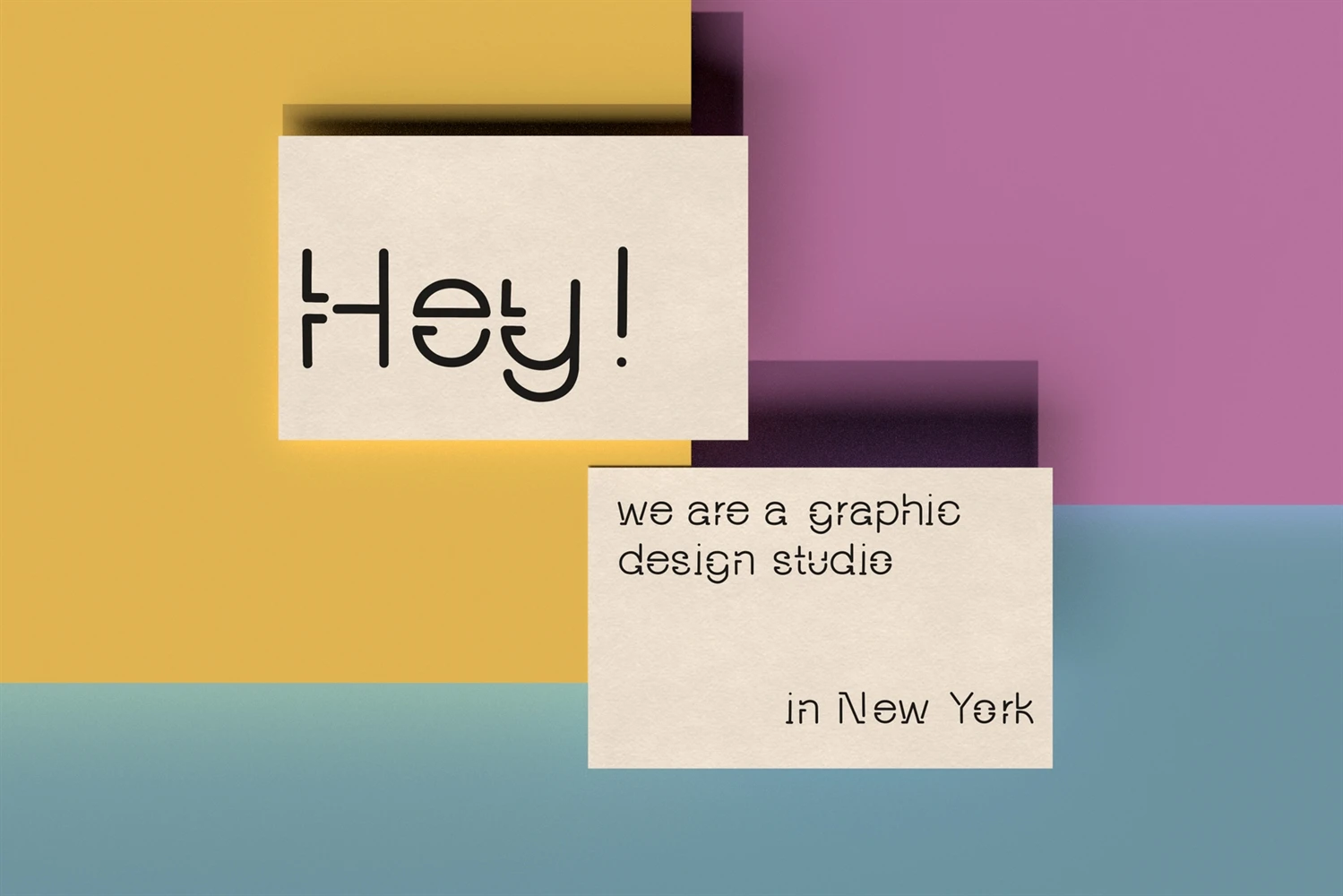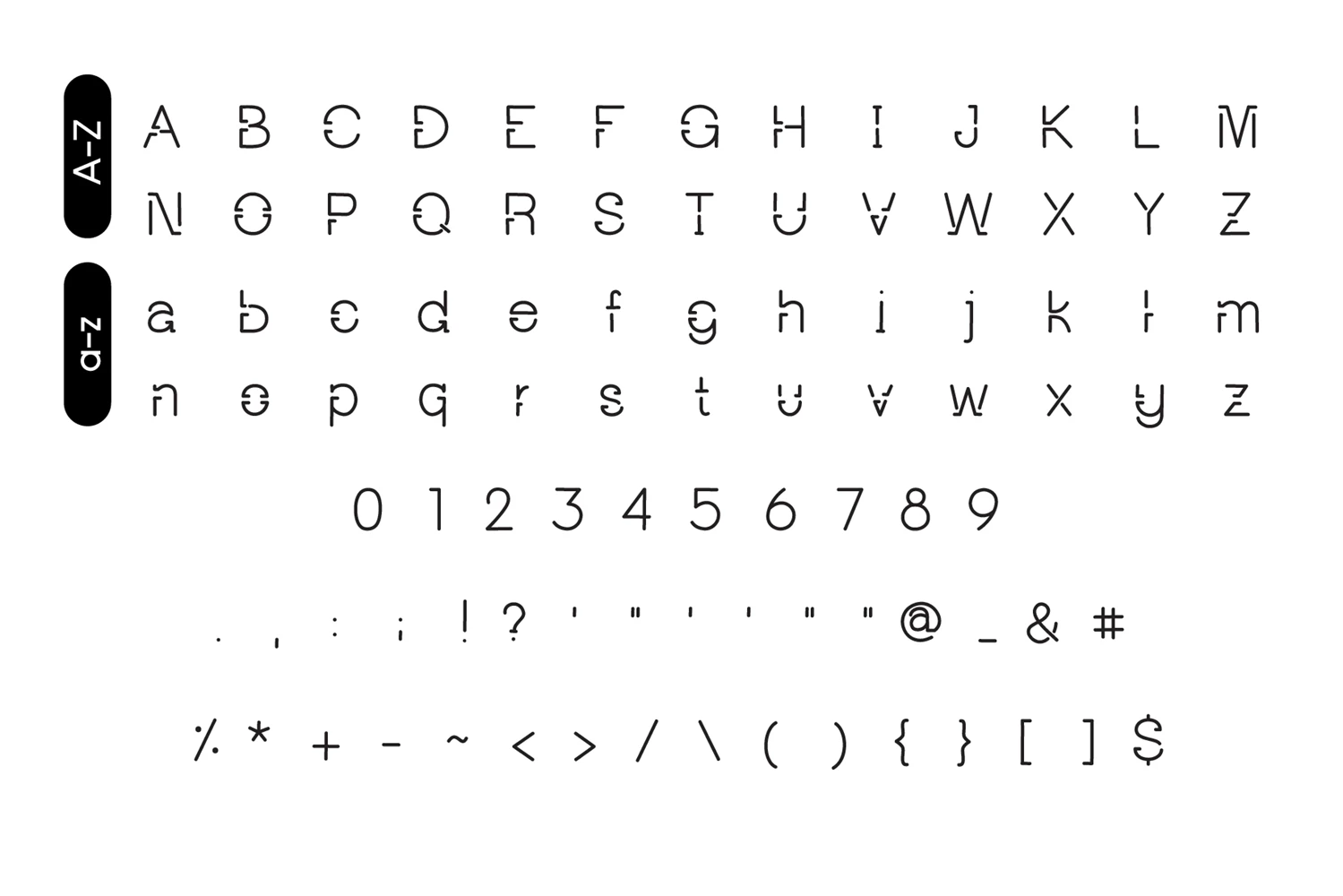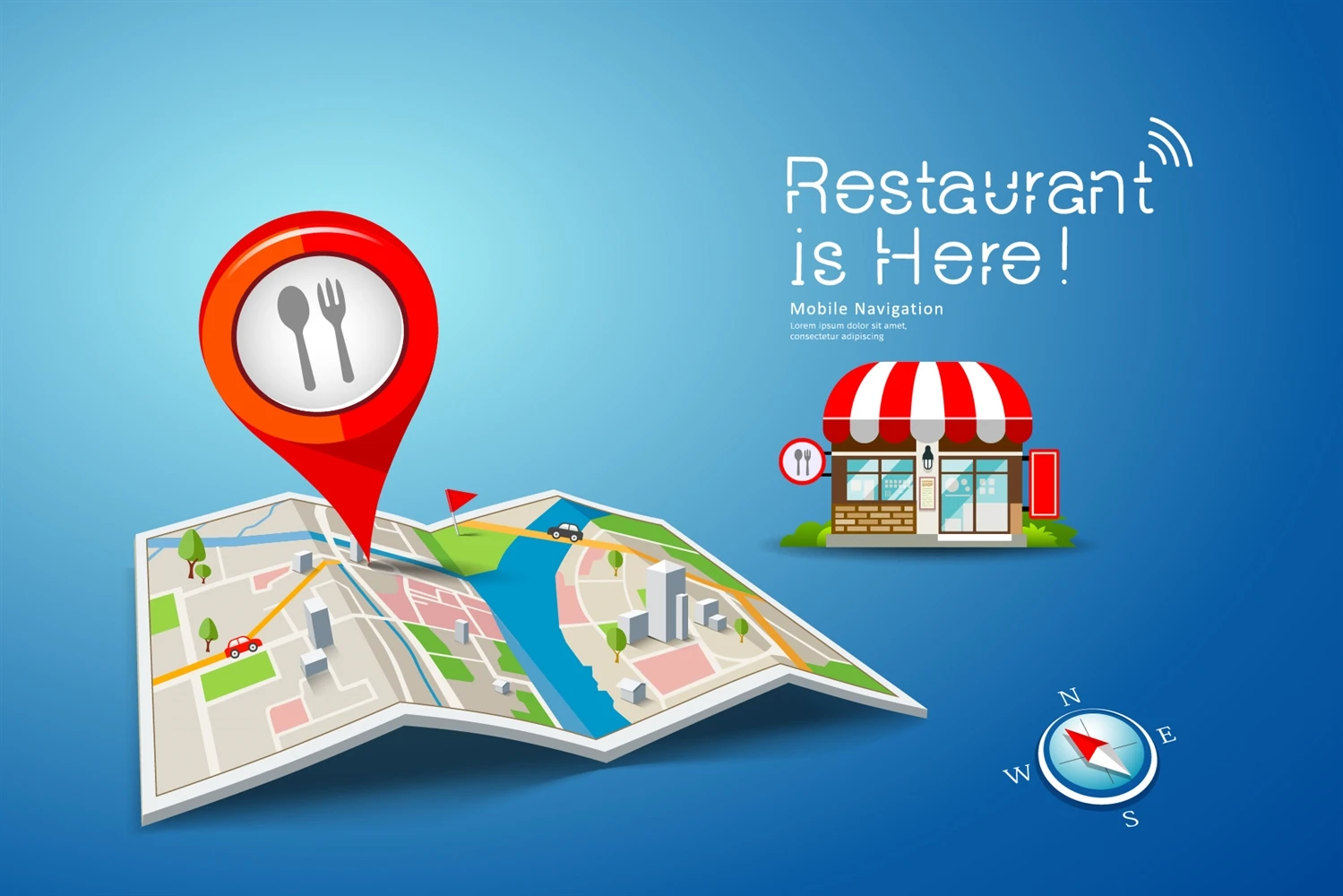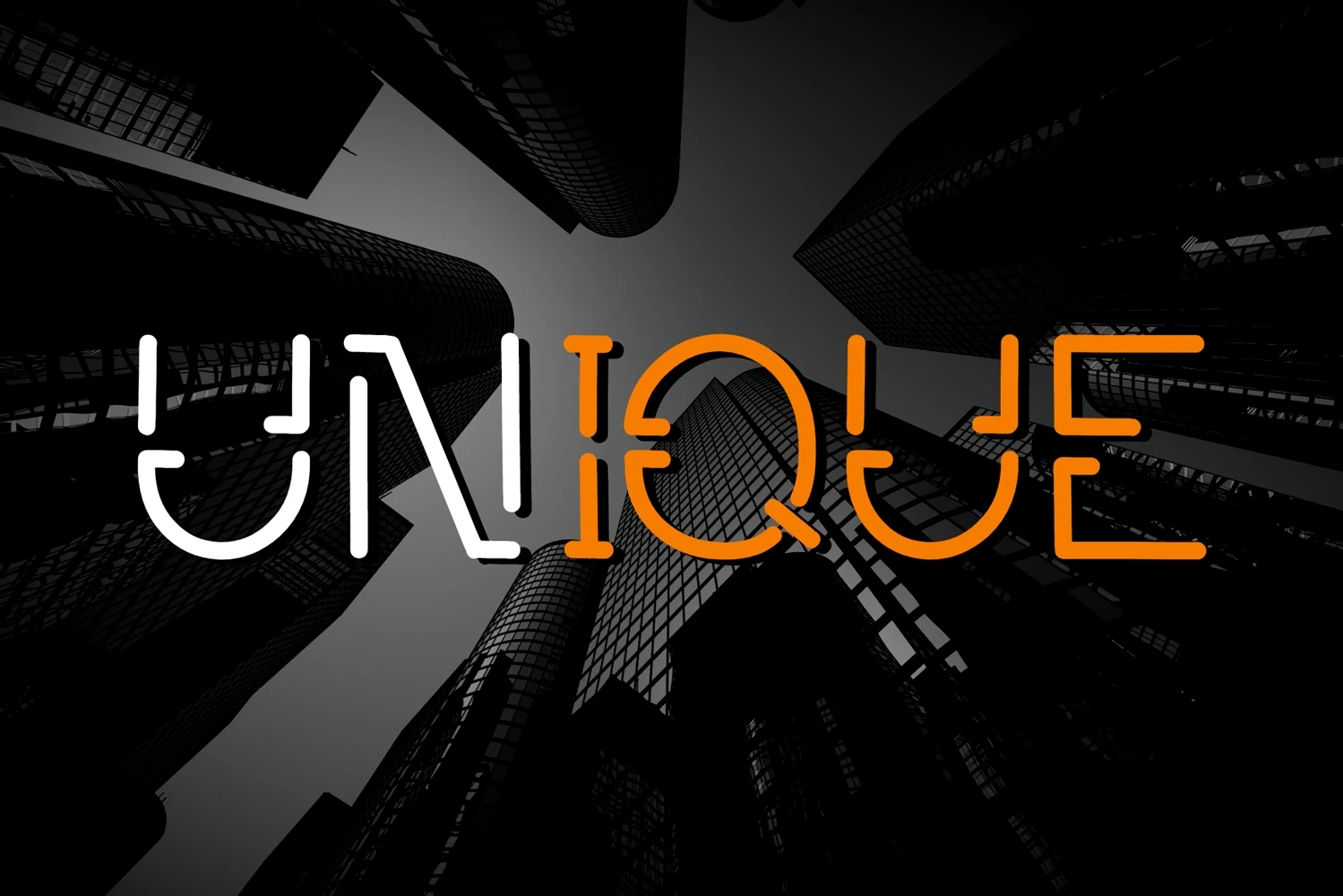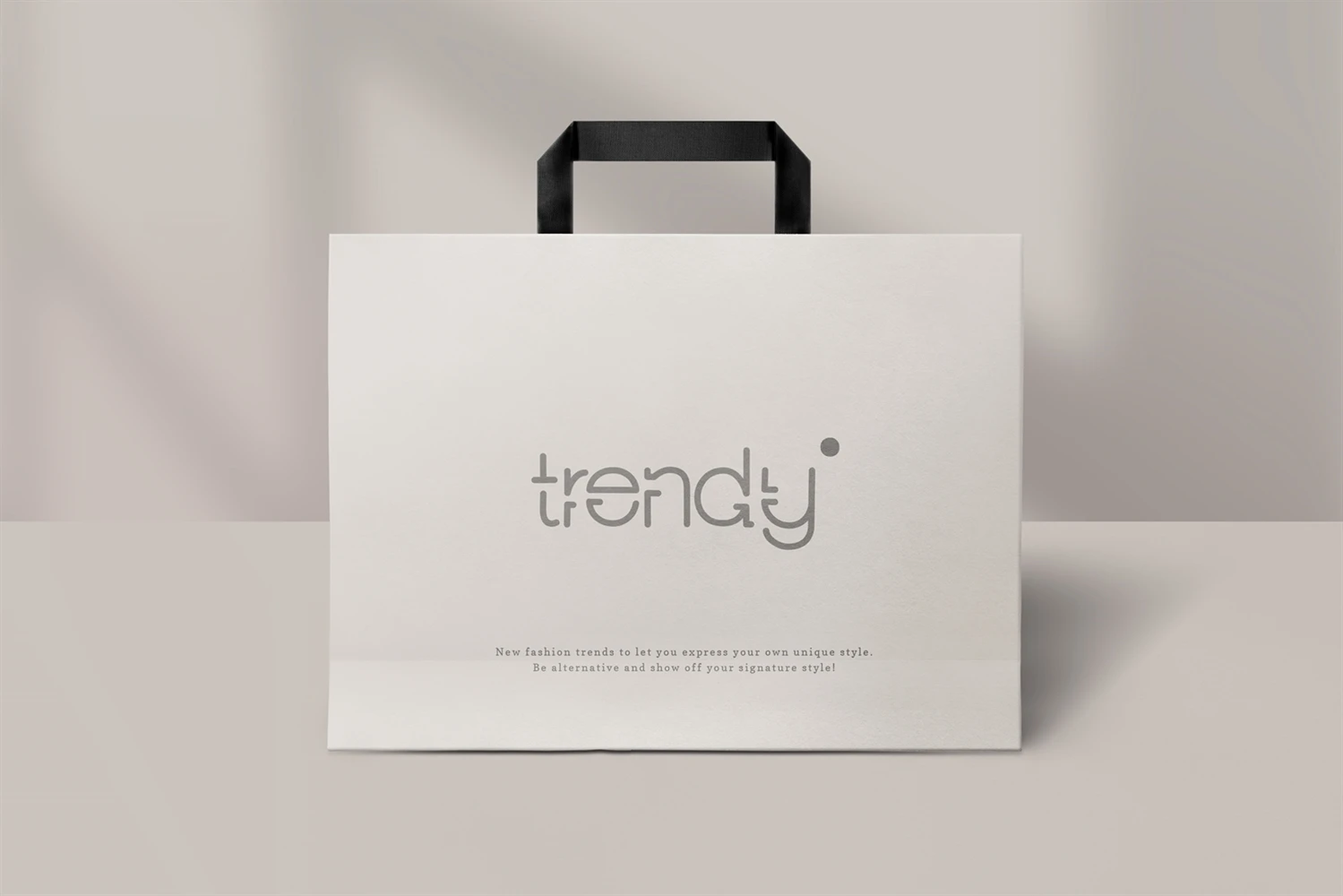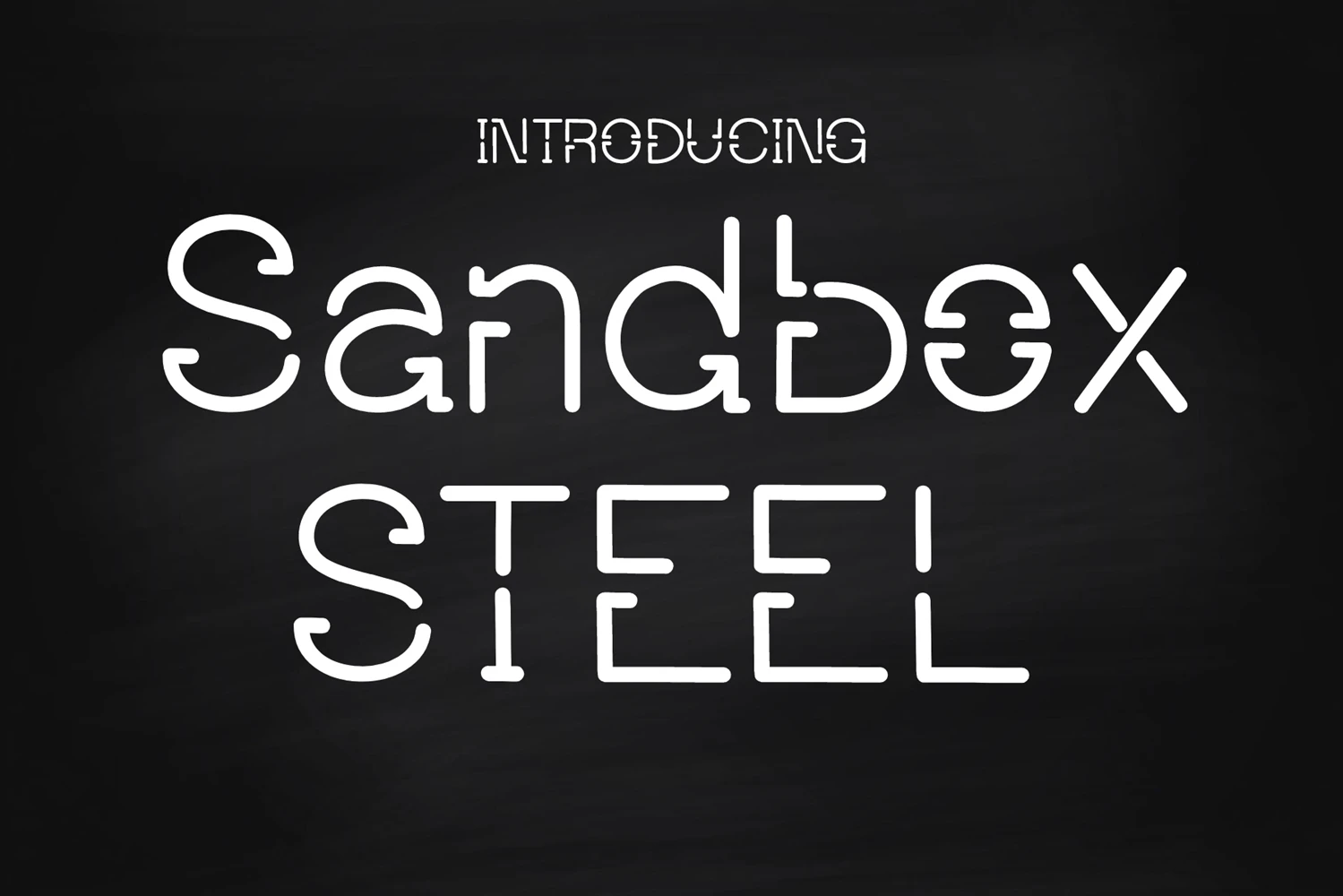
Sandbox Steel is a clean and robotic styled display font. It is ideal for writing web designs, business cards, or pretty much anything else that requires a cool touch.